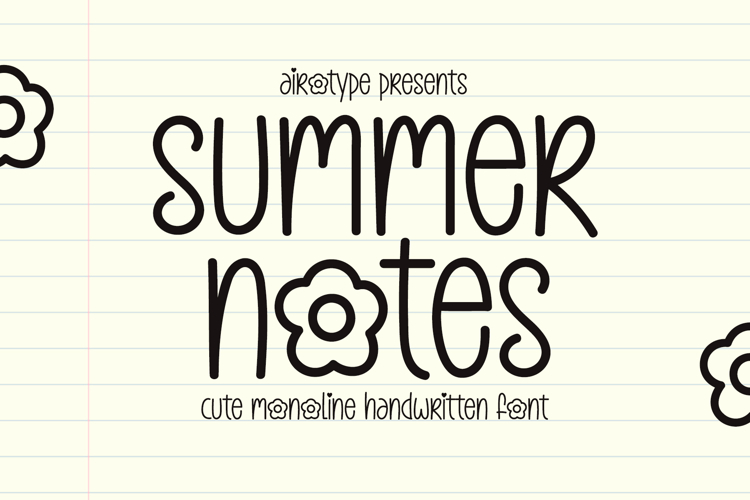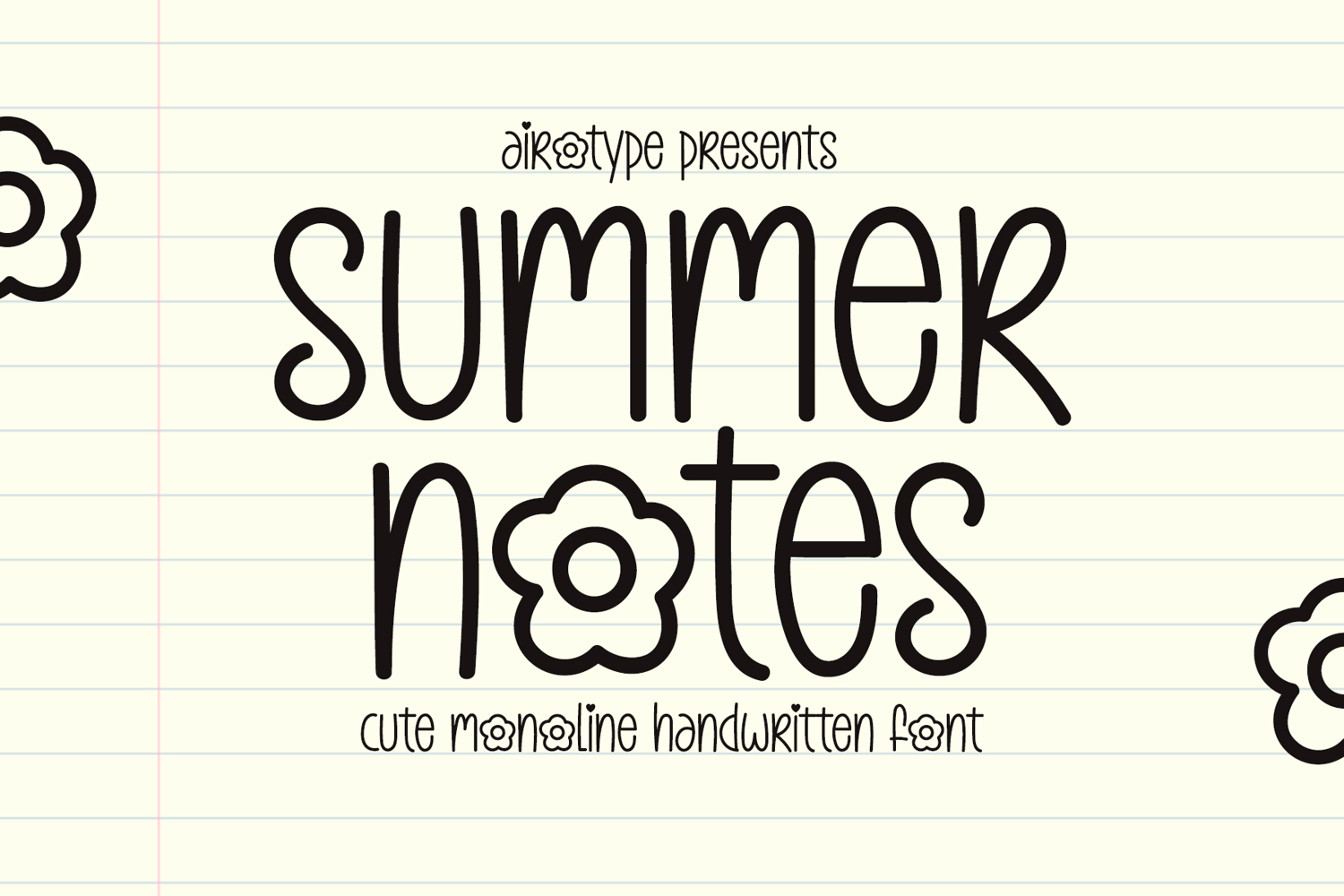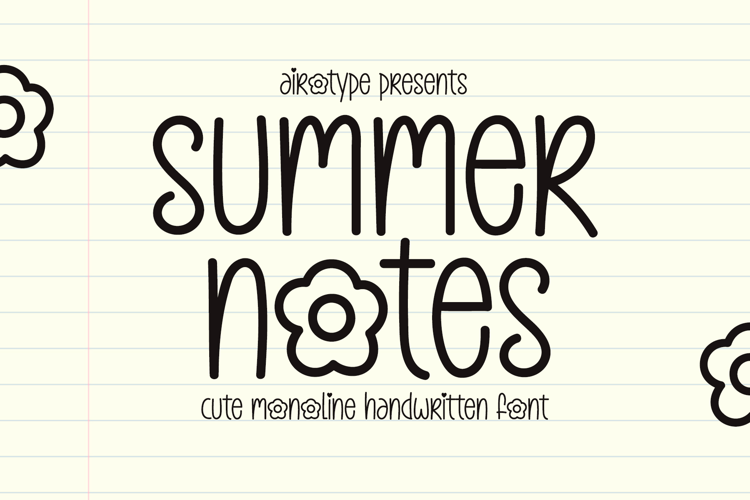
Summer notes is simple handwritten font with casual and organic touch. This font radiates simplicity and handwriting vibes into the design.
This font is perfect font for design with handwritten touch, such as back to school design, birthday invitation, summer design, t-shirt design, crafting, sticker, sublimation, and many more.